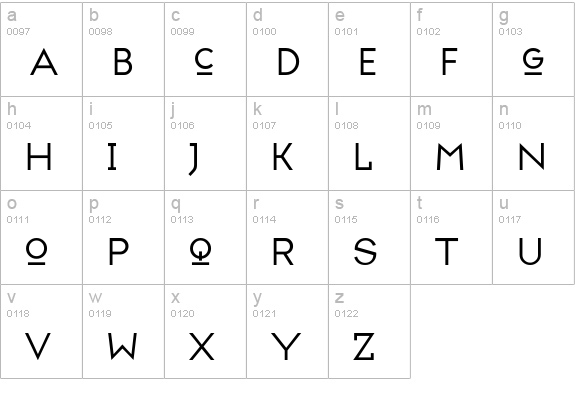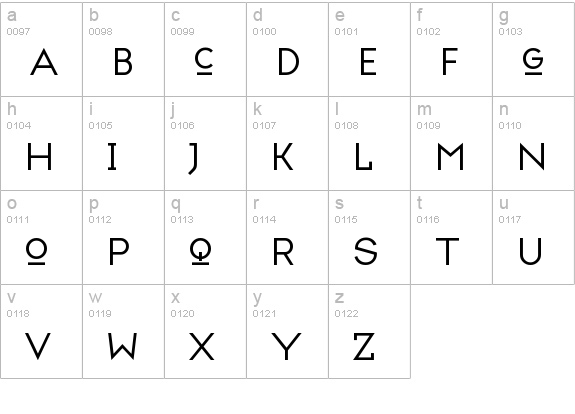
TypefaceSeven Font Details
Introducing TypefaceSeven, a sensational and versatile font that will elevate your design projects to new heights. With its sleek and modern appearance, TypefaceSeven is the perfect choice for a wide range of creative endeavors, from branding and logo design to website headers and social media graphics. What sets TypefaceSeven apart is not only its exceptional aesthetics but also the fact that it is available to you absolutely free. Yes, you heard it right! This remarkable font can be downloaded without any cost at FontsMarket.com, the go-to platform for all your typography needs. With its clean lines and balanced proportions, TypefaceSeven exudes a sense of elegance and sophistication. Its precise letterforms make it easily legible, ensuring that your message is delivered with clarity and impact. Whether you're designing a professional presentation or crafting a captivating poster, TypefaceSeven will effortlessly capture attention and leave a lasting impression on your audience. But the benefits of TypefaceSeven don't stop there. This font offers a rich variety of weights and styles, giving you the freedom to experiment and create a truly unique visual identity. From the bold and commanding Regular weight to the playful and dynamic Italic, TypefaceSeven offers endless possibilities to unleash your creativity and bring your vision to life. So why wait? Don't miss out on this extraordinary opportunity to enhance your design projects with TypefaceSeven. Visit FontsMarket.com today and download this remarkable font for free. Elevate your typography game and make a statement with TypefaceSeven – the font that combines aesthetic excellence with accessibility.